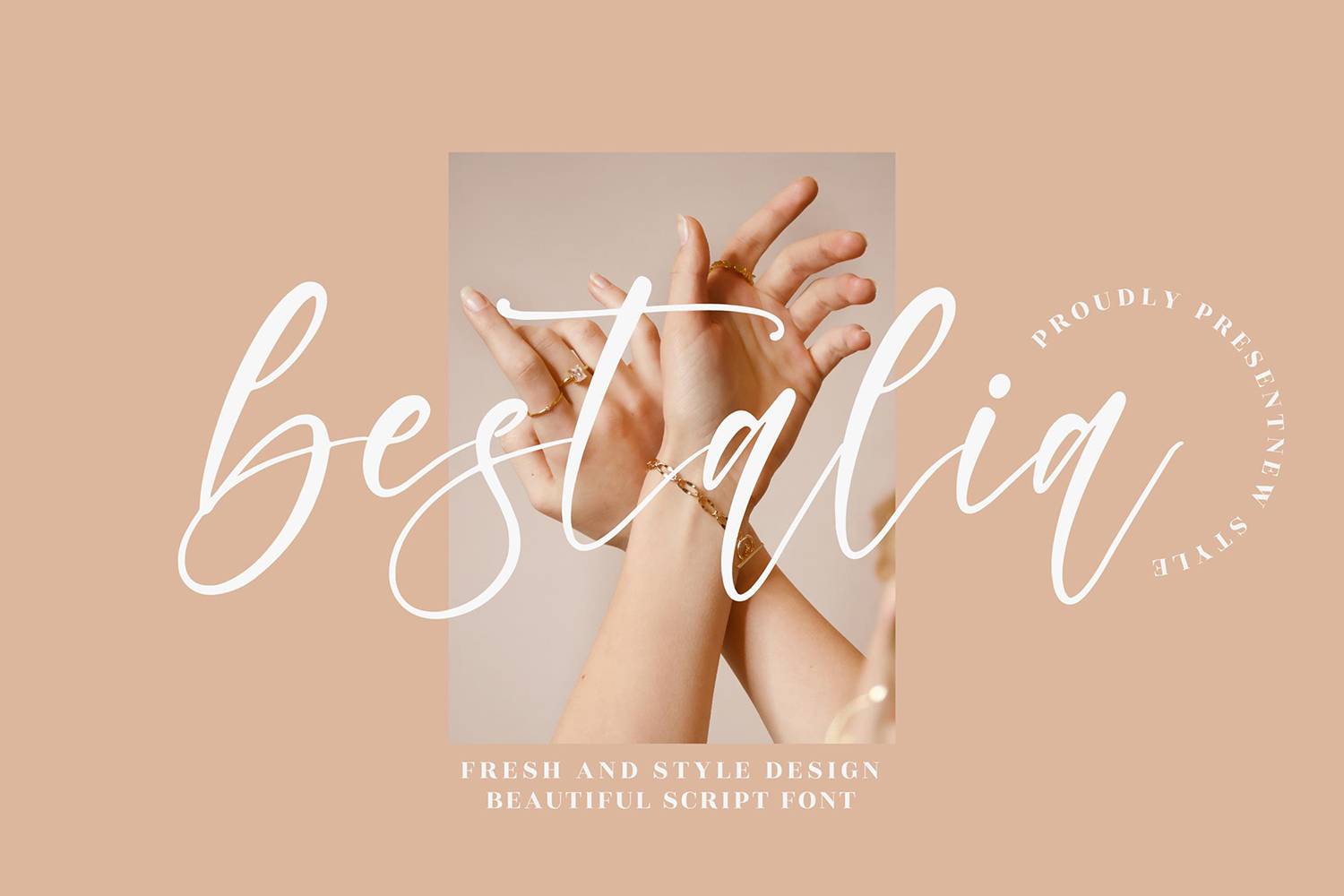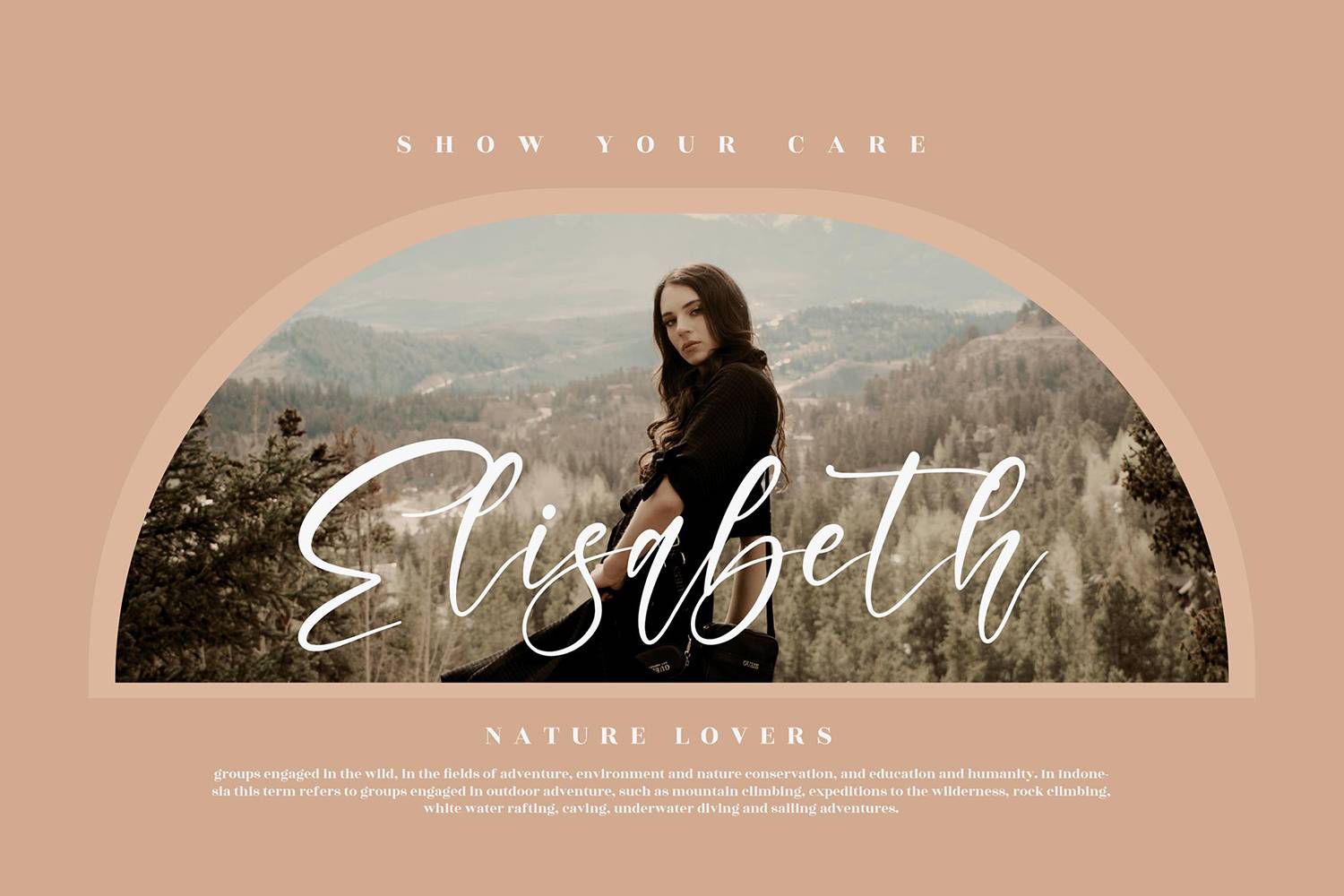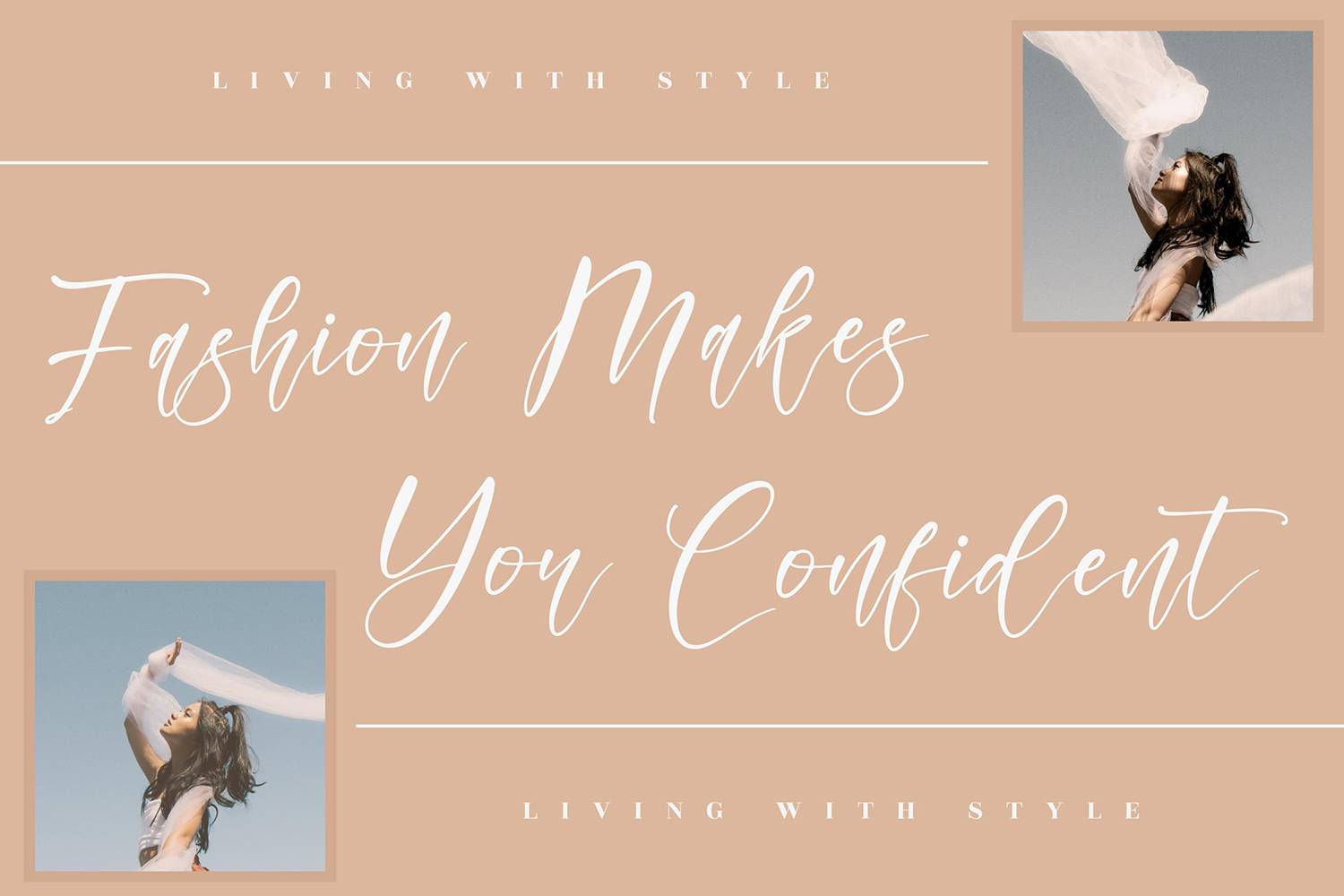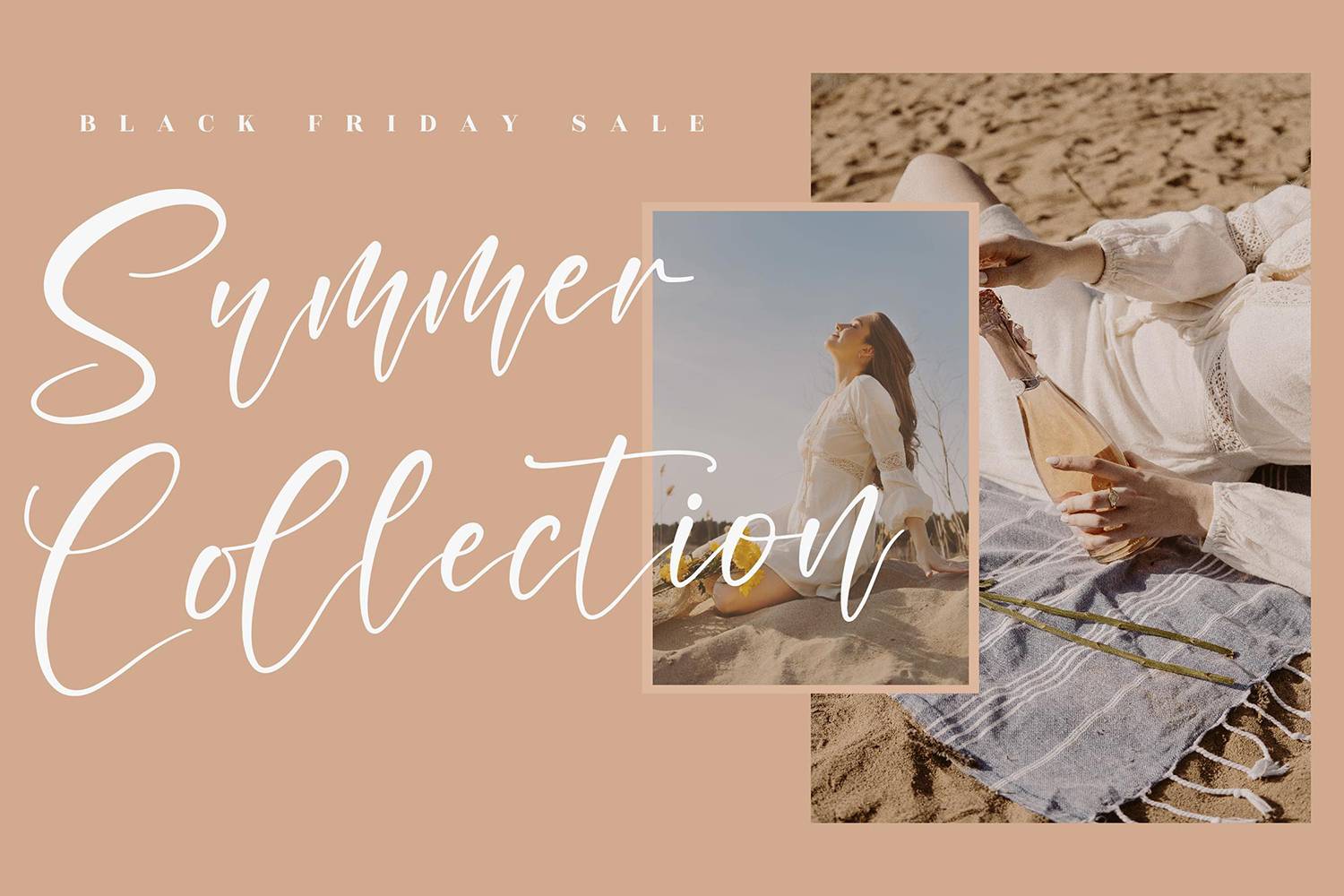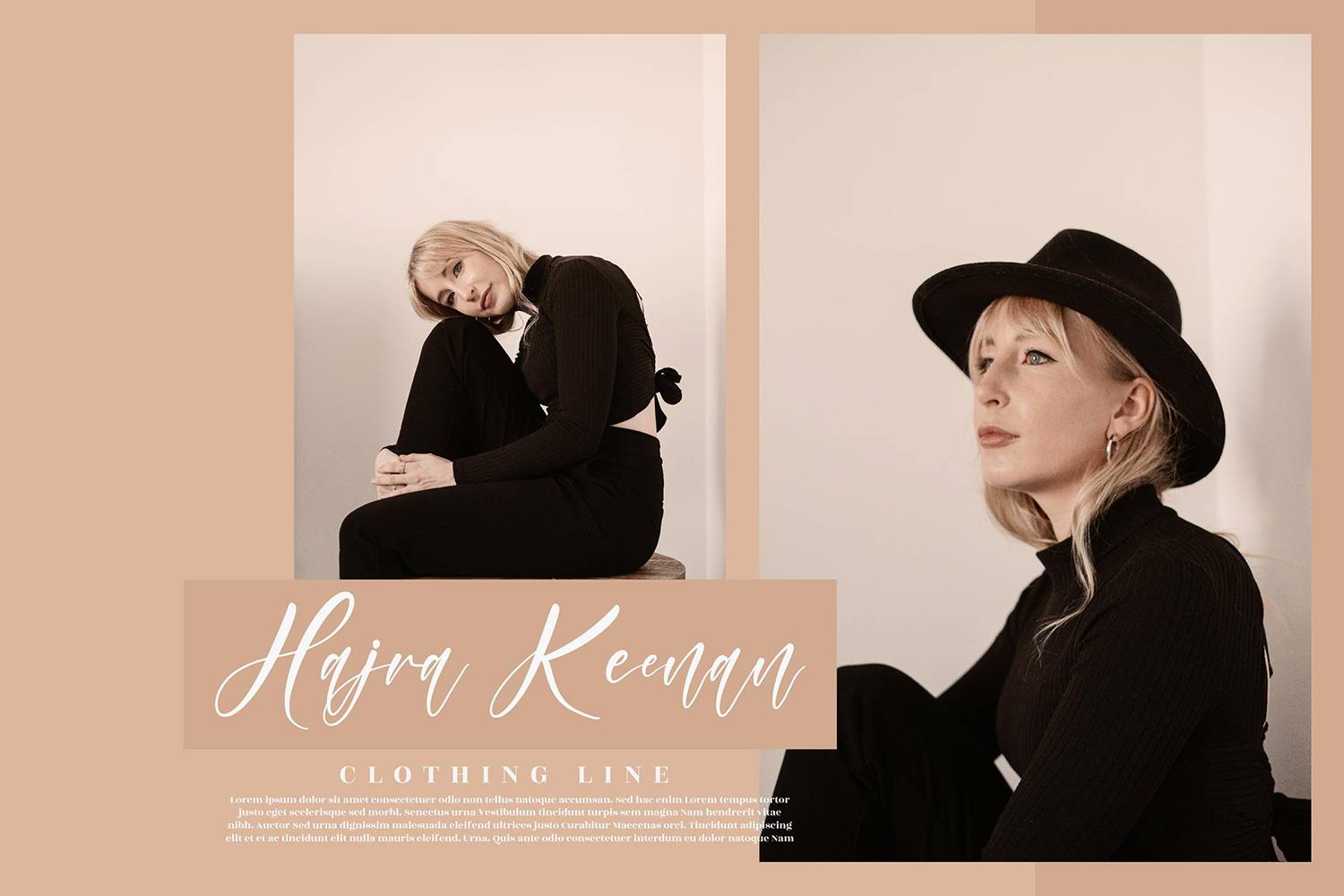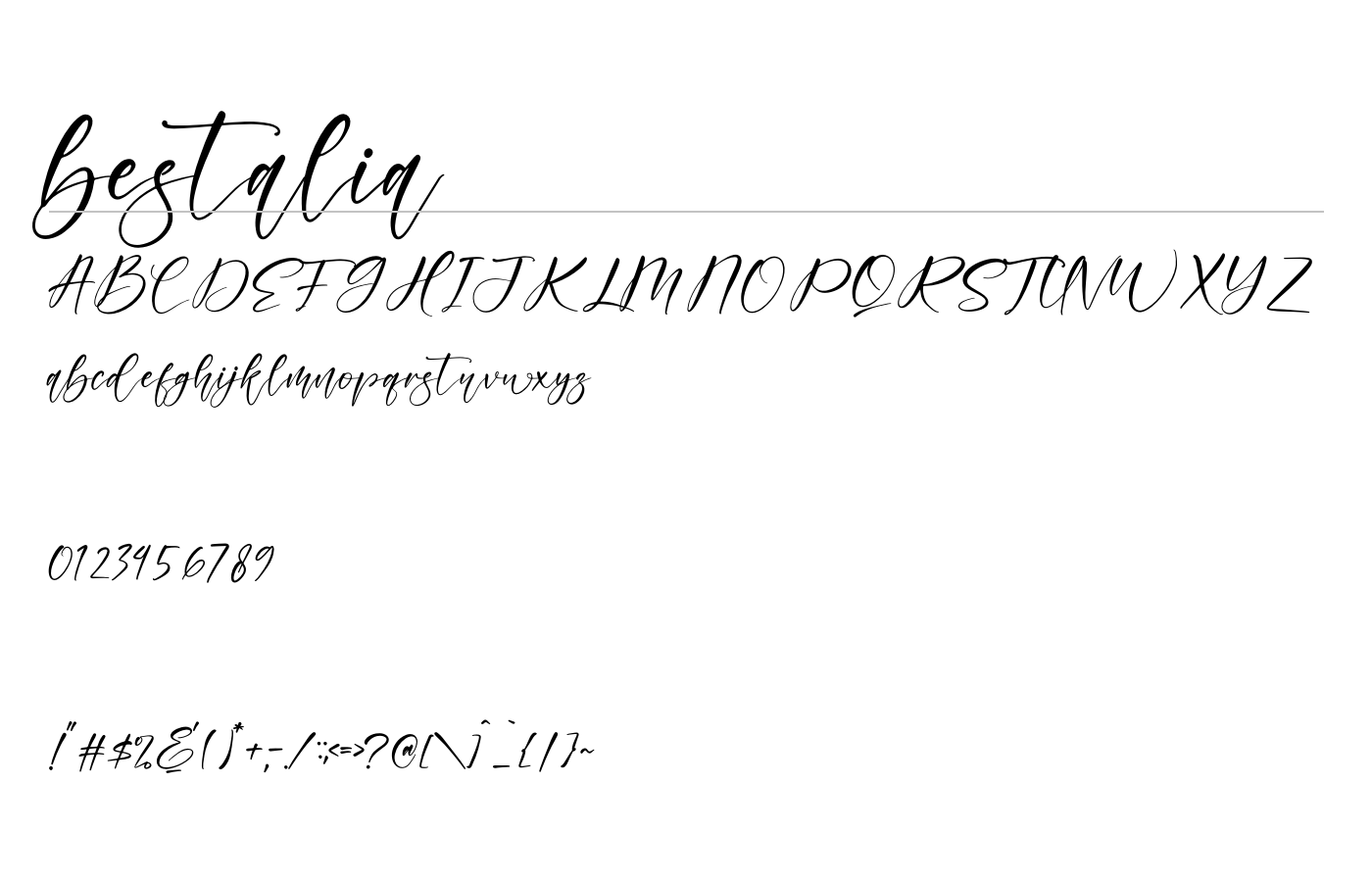
Bestalia is a graceful script font featuring elegant, flowing strokes and a delicate, handwritten feel that adds a personal touch to any design. With its smooth curves, moderate contrast, and refined letterforms, it works beautifully for invitations, branding, and editorial projects where a sophisticated yet approachable style is desired. This font is perfect for designs needing a touch of elegance and warmth without sacrificing readability.
Bestalia Font
About Bestalia Font